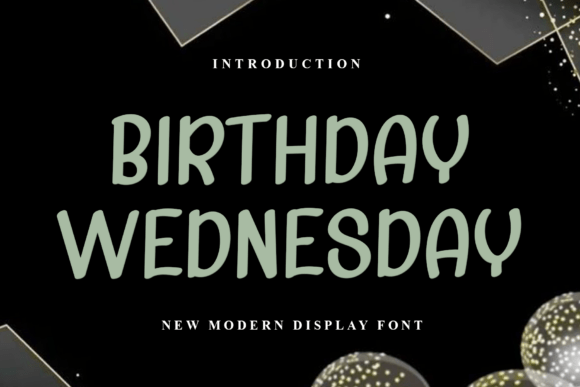
Getting into the Holiday Spirit with Birthday Wednesday Font
As you sit down to design your holiday cards and gift tags, you’re suddenly struck by the need for a font that captures the essence of the season. The twinkling lights, the sound of jingling bells, and the warmth of loved ones gathered around the tree – it’s a time for magic and wonder. And that’s exactly what the Birthday Wednesday Font is designed to evoke.
This festive and merry typeface is the perfect addition to your holiday design arsenal. With its decorative elements and whimsical flair, it adds a touch of enchantment to your words. Whether you’re creating greeting cards, gift tags, or holiday-themed projects, the Birthday Wednesday Font brings a cheerful and nostalgic ambiance to your typography. As a designer, you know how valuable it is to have the right tools at your disposal – and with this PUA-encoded font, you can access all of its amazing glyphs and ligatures with ease.
Birthday Wednesday Font Key Features
- Font Family: Birthday Wednesday is a sans-serif font family.
- Unique Characteristics: The font features a playful, modern aesthetic with bold lines and rounded corners, making it ideal for birthday-themed designs, party invitations, and celebrations.
Birthday Wednesday Font Review
I recently had the chance to work with the Birthday Wednesday Font, and I must say it’s a unique and eye-catching typeface. ✨ Here are a few things that stood out to me:
- Its playful, celebratory vibe is perfect for birthday-themed designs, which is exactly what the font was designed for.
- The font’s varied weights and styles make it easy to customize and create visually appealing combinations.
- The font’s rounded edges and smooth lines give it a friendly, approachable feel.
However, I did encounter a few limitations that might impact your design choices:
- ⚠️ The font may be too flashy or overwhelming for more subdued designs, so be sure to use it judiciously.
- ⚠️ Some of the letters may not be perfectly legible at smaller font sizes, so it’s essential to test the font at various scales.
Overall, I think the Birthday Wednesday Font is a great addition to any designer’s toolkit. While it may not be suitable for every project, it’s a fantastic choice for birthday-themed designs and can add a fun, celebratory touch to your work.
Tips for Getting the Most Out of the Birthday Wednesday Font
To get the most out of the Birthday Wednesday Font, use it to create eye-catching social media posts, invitations, and flyers for birthday celebrations. Experiment with different font sizes, colors, and styles to add visual interest to your designs.
Common Use Cases for the Birthday Wednesday Font
The Birthday Wednesday Font is ideal for use in social media posts, birthday invitations, flyers, and party decorations. It can also be used to create personalized birthday cards and gifts.